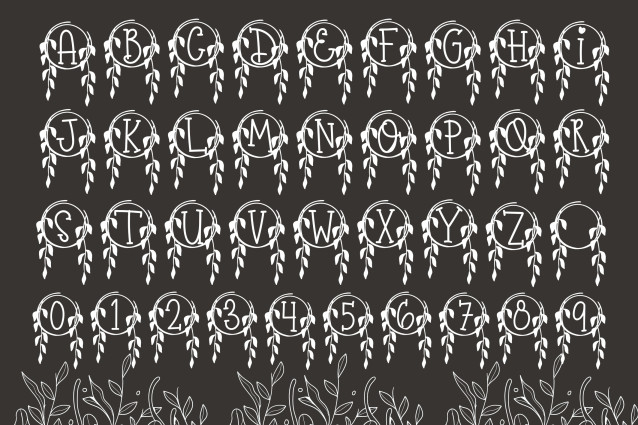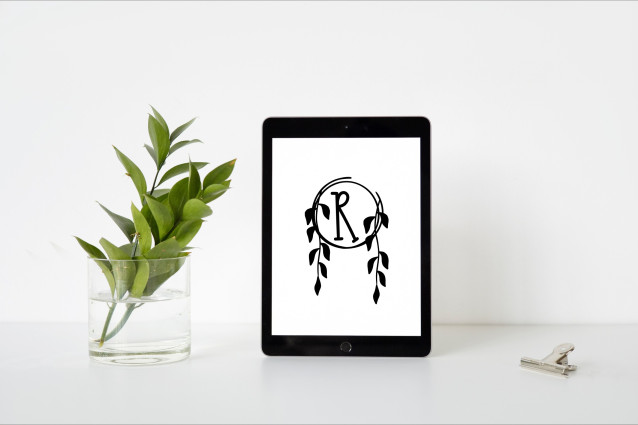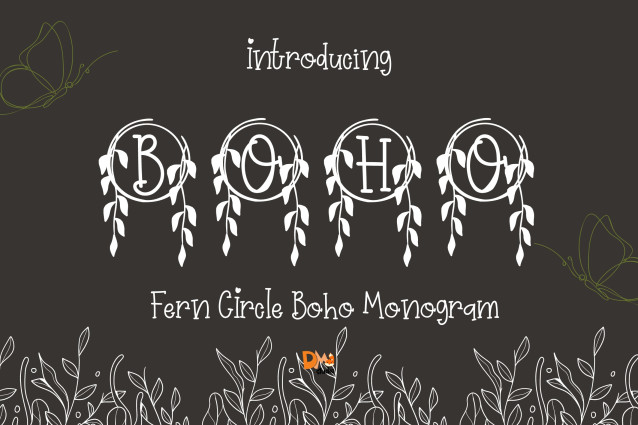
Fern Circle Boho Monogram Font
Fern Circle Boho Monogram Font is a handcrafted monogram font featuring elegant circular letterforms wrapped in delicate fern accents. With a balance of rustic charm and refined structure, this font is perfect for adding a botanical and boho vibe to your personalized projects, from wedding decor to Cricut crafts and lifestyle branding.